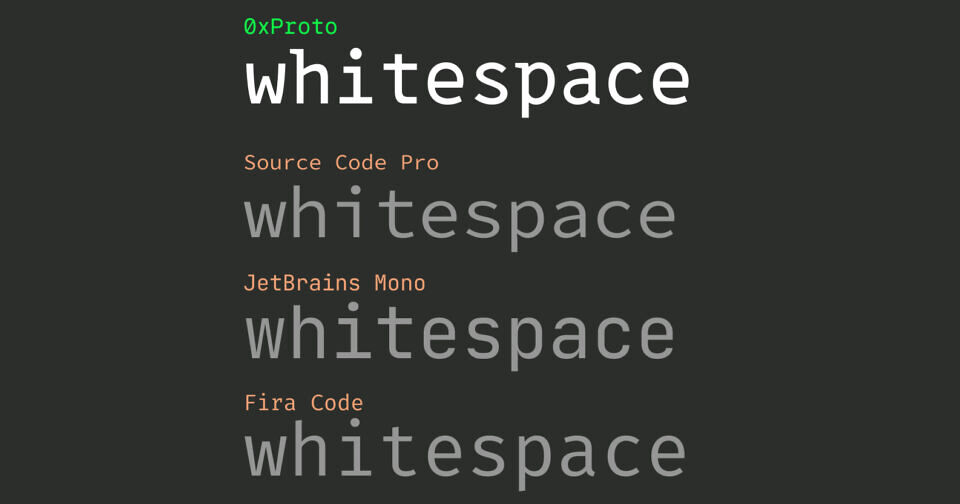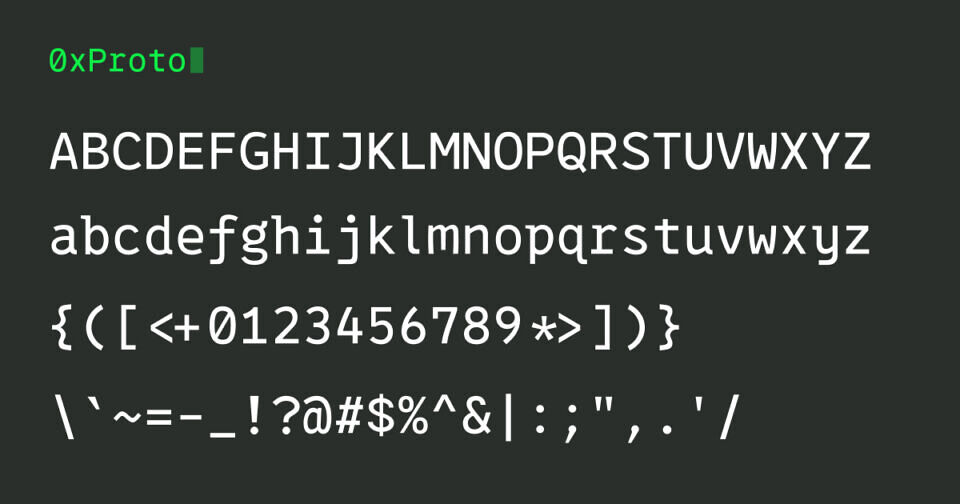
0xPropo is a font that retains the atmosphere and beauty of a monospace font and solves the above difficulties in using monospace fonts for writing natural language. This is the proportional version of 0xProto.
0xProto is a programming font focused on source code legibility.